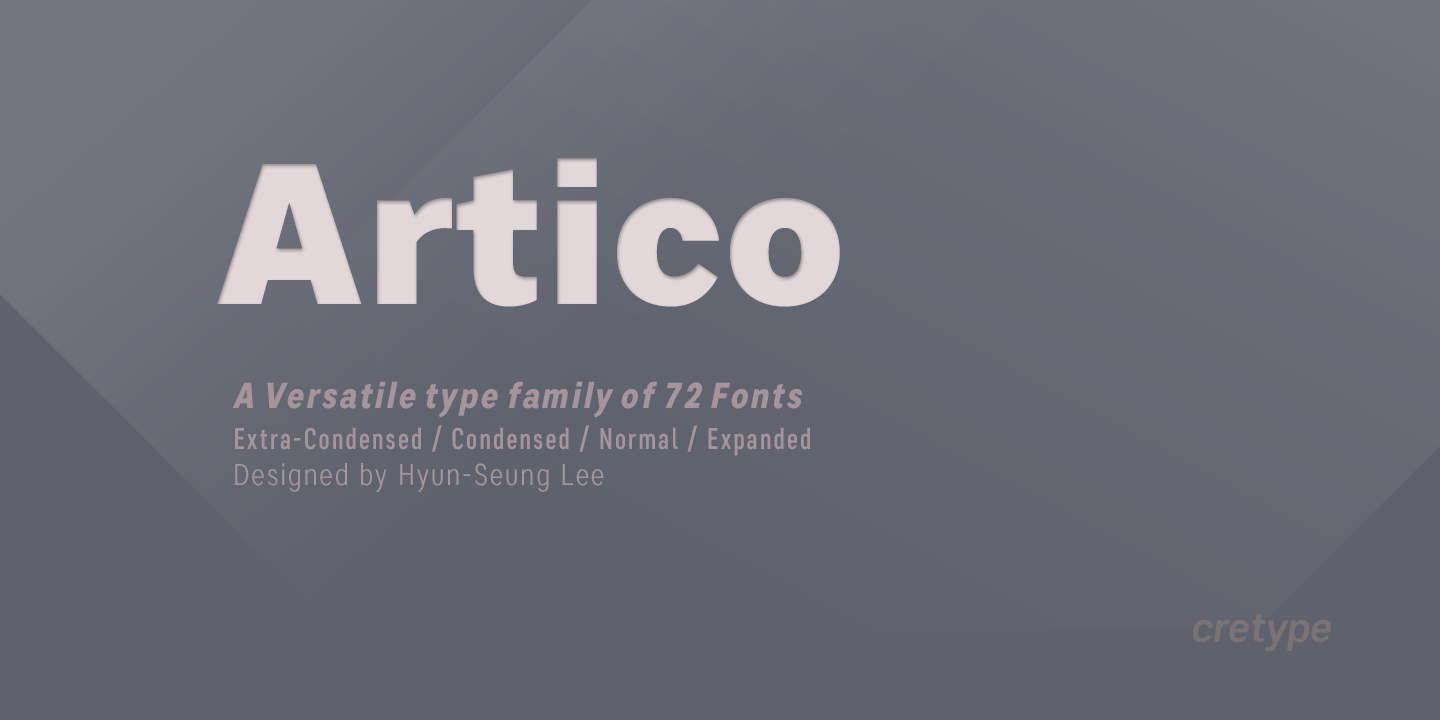
Artico Font is perfect for Arctic expedition branding, polar research materials, winter sports marketing, ice-themed entertainment, frozen food packaging, climate change awareness campaigns, Antarctic documentation, cold weather gear advertising, glacial tourism promotions, and pristine winter destination materials.
What makes Artico Font exciting is its crystalline clarity and polar elegance that captures the essence of Arctic landscapes with pristine beauty and glacial sophistication. This distinguished typeface embodies the spirit of polar regions with its clean character forms and ice-inspired proportions that evoke crystalline snow formations, pristine glacial surfaces reflecting aurora borealis, and the kind of pure clarity that comes from experiencing the untouched wilderness of Earth's polar frontiers. The font's arctic character creates an immediate sense of pristine beauty and the kind of crystalline purity that defines the world's most remote landscapes.
Artico Font family includes regular weight with crystallinely crafted character designs featuring glacial curves and polar proportions. The typeface maintains exceptional readability while showcasing its distinctive arctic personality through cleanly designed letterforms that seem carved from ice with the precision of natural crystalline formations and the purity of pristine snow.
Polar expedition professionals consistently select Artico Font Free Download for projects requiring authentic arctic appeal and glacial credibility. This remarkable typeface brings the purity of polar landscapes to brand communications, combining crystalline aesthetics with pristine functionality to create memorable arctic experiences. The crystallinely designed characters ensure pristine positioning across all applications, making it essential for expedition companies, environmental organizations, and any institution seeking to communicate the transformative power of pristine wilderness and the crystalline beauty that comes from exploring Earth's most remote polar regions through Artico Font Free Download.